What is Font?
To know the beautiful fonts in photoshop, first we need to clarify what a font is? According to the convention, a font is a complete set of characters including: the same number of shapes (), formats () and sizes ().
For example, with the typeface Futura , we have Futura bold with a size of 12 points is considered one font and Futura regular with a size of 8 points is another font. You may wonder. So how to distinguish between typeface and font? There are many cases of confusion between these two concepts, but in fact this is not too important, most people increasingly accept that the terms typeface or font can be used interchangeably.
The above phenomenon exists because '' - originating from French '' - originally referred to the complete set of metal character blocks used in typesetting on a page of paper during the old printing period using engravings.
They need to be consistent in style and font size. However, in the age of electronic technology, vector fonts can be easily enlarged and reduced, so changing the size of a font set has become simpler than ever. Distinguishing between fonts and typefaces is no longer necessary.
List of 15 Beautiful Fonts in Photoshop Designers Cannot Miss
Here are 15 of them:
Helvetica
To start the list of beautiful fonts in photoshop, Helvetica is the most used font by designers. Some designers have praised this font and said that it can illustrate and convey the message you want to send. Helvetica is a simple, modern and easy-to-read font that is suitable for most designs, from professional newspaper pages to advertising designs in many different fields,.
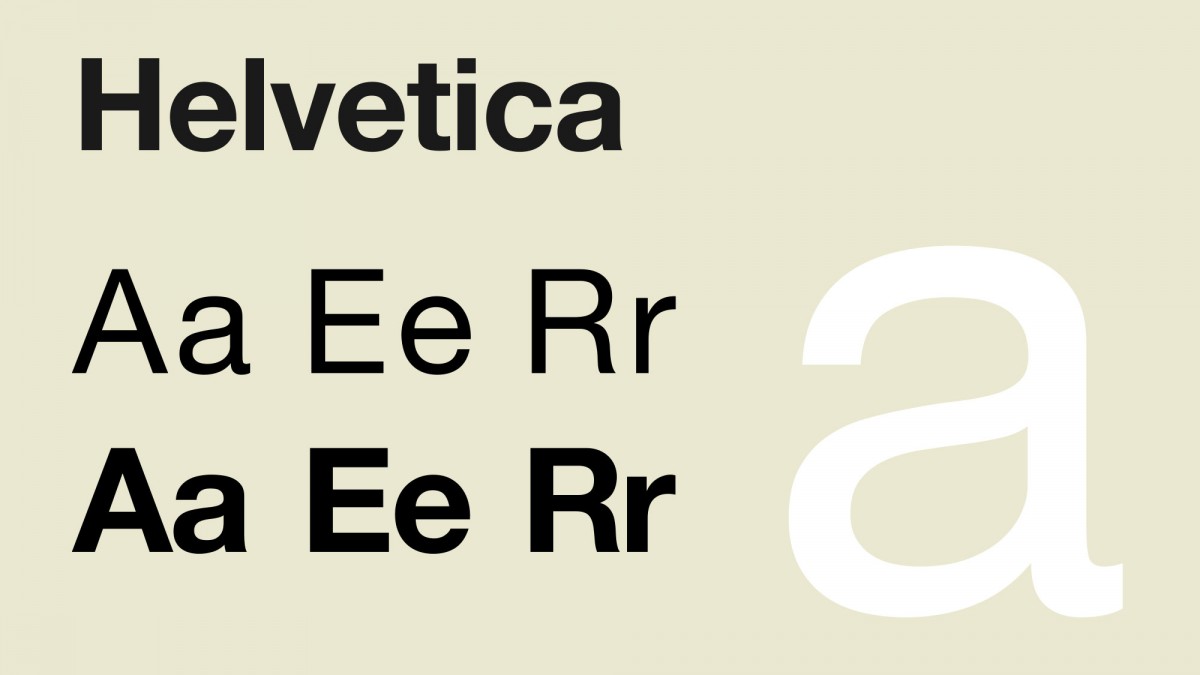
Montserrat
Montserrat is Among the friendly fonts and is often used by designers in web interface design or mobile software. However, because the boldness of this font is quite large, it can sometimes become a double-edged sword if you use it to present long paragraphs.
Garamond
The version mentioned here is Adobe ITC Garamond , released in 1989. Garamond is a great font for magazines, textbooks, websites, and long text. Recently, a German publication voted Garamond as the best font after Helvetica.
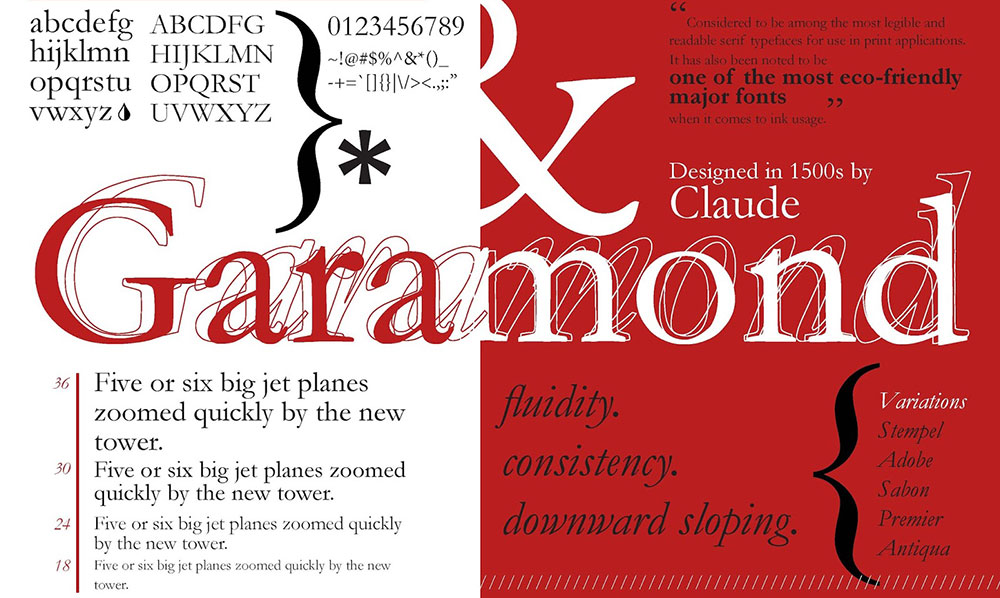
Beautiful Bloom
When it comes to beautiful fonts, people often think of handwritten fonts or calligraphy fonts. Beauty Bloom is the perfect blend of both. The uneven connection between the letters makes this font stand out in invitation designs, signature logos or thank you notes. Linotte
Another beautiful font in photoshop with the strokes in this font having rounded ends that create a happy feeling for the viewer. Linotte has 5 different styles so you can freely create and combine them.
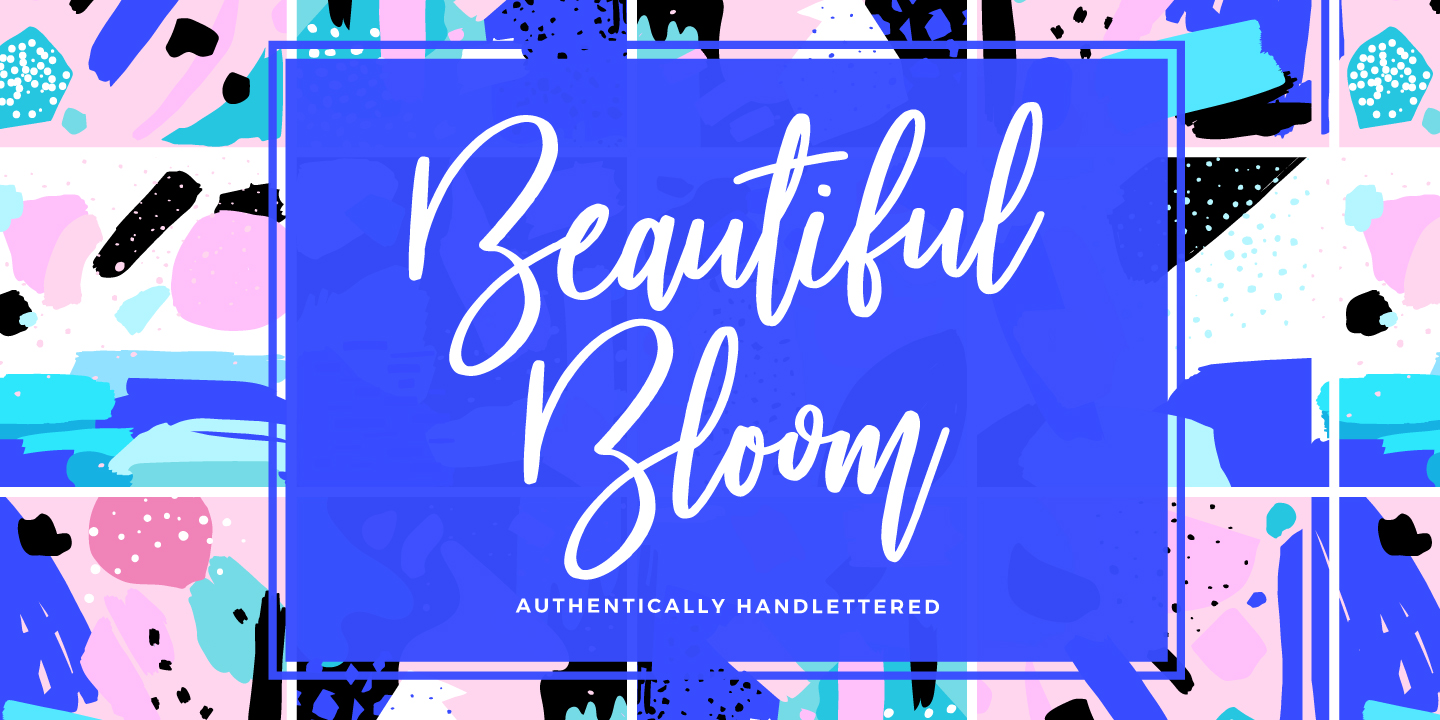
Playlist
This is a special font duo. The sans version of this font pair is a soft handwritten typeface combined with a dry, loose brush stroke. Artimasa Studio designed these fonts to be used together, so you don't have to waste time pairing fonts.
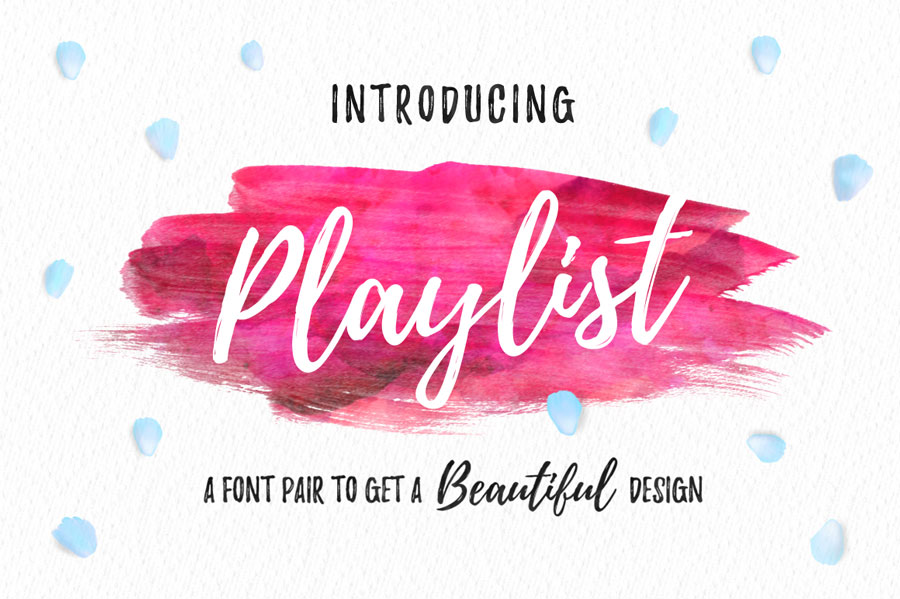
Futura
Futura is a font that appears frequently on large screens, logos, or in books that require small text.
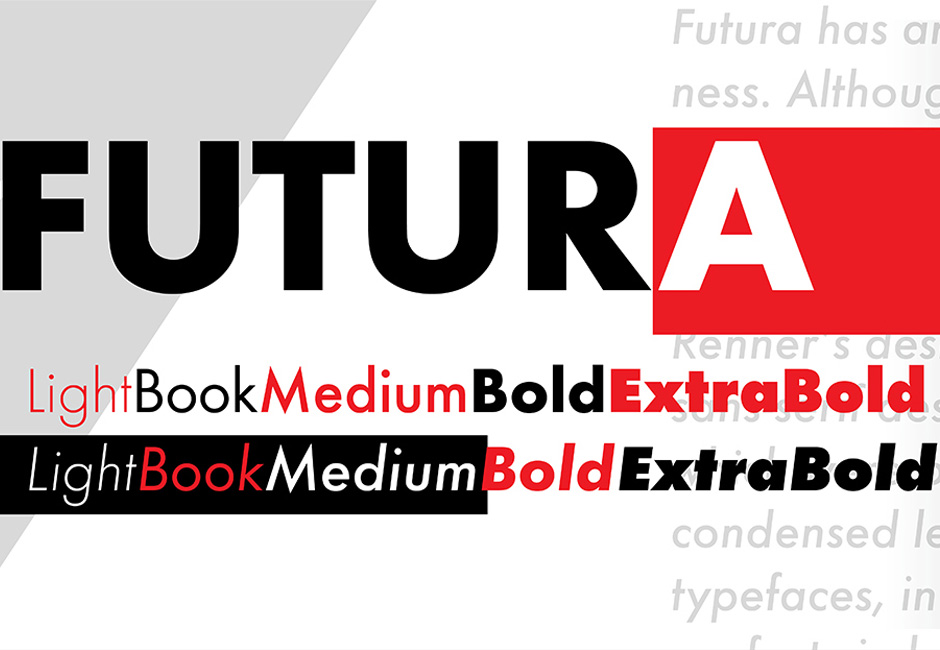
Bickham Script Pro
Bickham Script Pro is used mainly for ceremonies or luxury events.
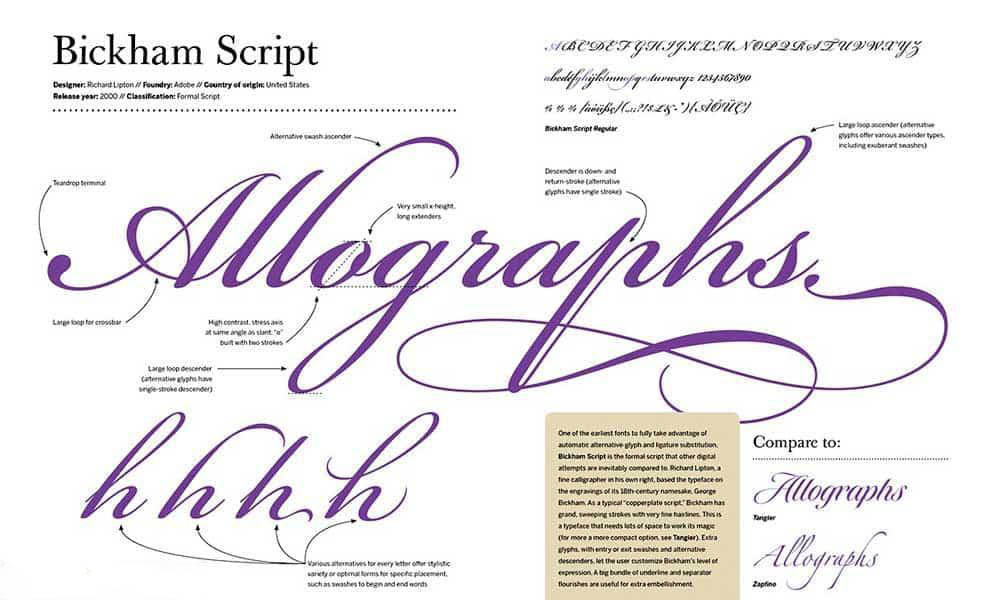
Bodoni
Bodoni is a great choice if you are looking for a font for your headlines or logos. Bodoni has a narrow structure with straight and thin serifs. The face of this font has a high contrast between the light and bold strokes, which makes it more aesthetically pleasing in designs.
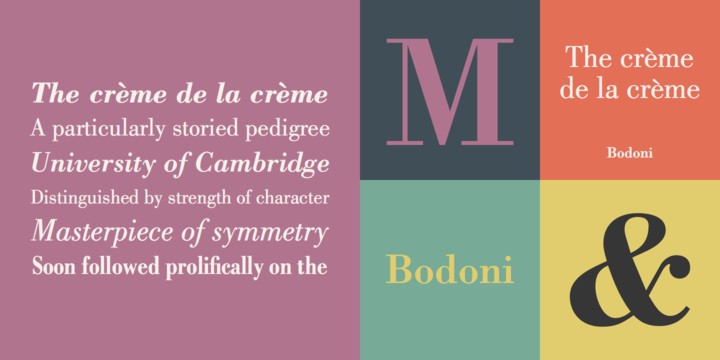
Edwardian Script ITC
Unlike the basic font above, this is a beautiful font in photoshop with stylized text and soft lines. The elegance and balance of this font makes it look great in wedding card designs, thank you cards or invitations. This font is often used for decoration instead of text presentation.
Braggadocio
Braggadocio is Among the best Photoshop sans serif fonts. It is a bold, hyper-stylized typeface that grabs the viewer's attention. It is great for retro-style headlines. However, be careful not to overuse this font as it can become difficult to read.
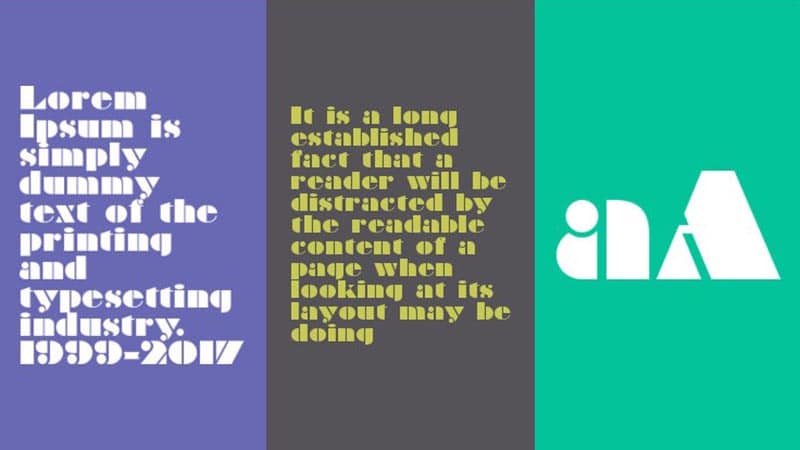
Trajan
This is a font often used in Hollywood movie poster designs. Trajan is an old-style serif font designed in 1989 by Carol Twombly for Adobe. The design was inspired by Roman geometry and was used for the text at the base of Trajan's Column. This is where the name Trajan comes from.
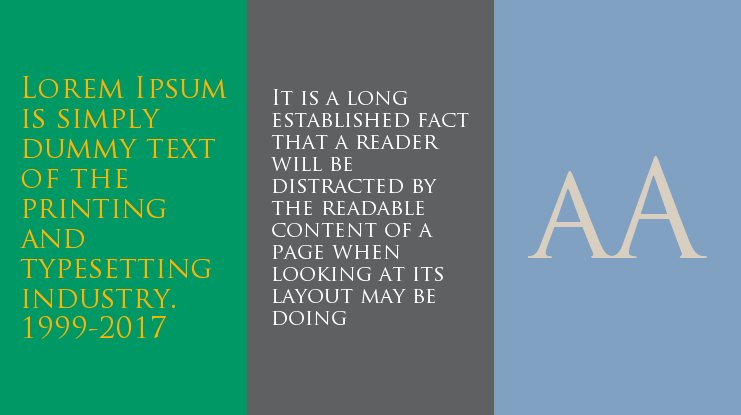
American Typewriter
Want a slab font that can help you present paragraphs with a more modern and casual feel than Times New Roman? American Typewriter is the answer for you, with its retro style reminiscent of old-fashioned typewriters.
Cabana
Cabana is a tall font designed by Adrien Coquet, a great choice for decorative designs.
Times New Roman
This is an easy-to-read font that is not too flashy. It is a common font, most commonly used because it is pre-installed in Photoshop software. Times New Roman was created in the 1920s for books, newspapers and magazines.